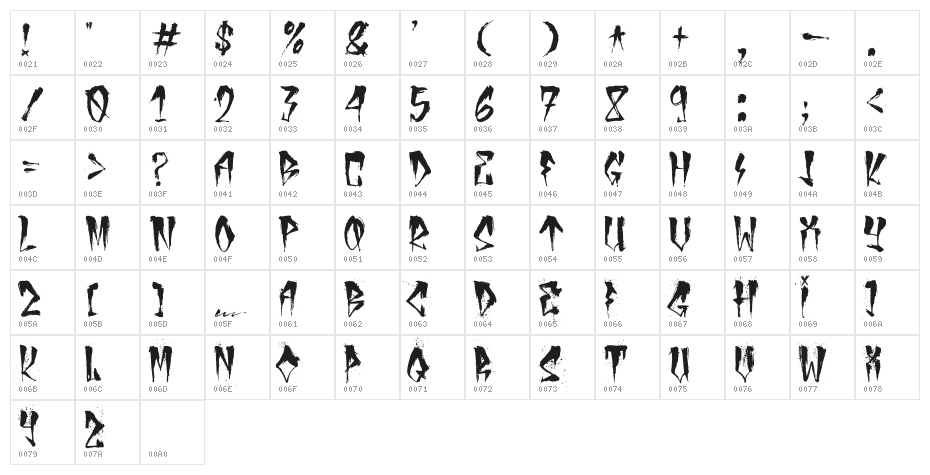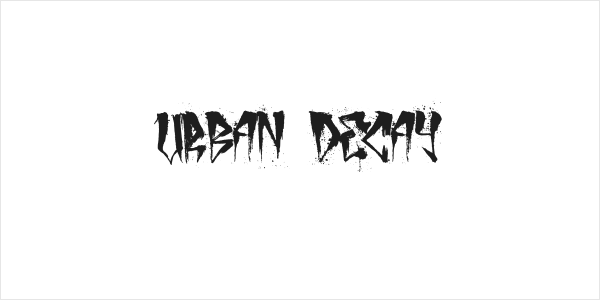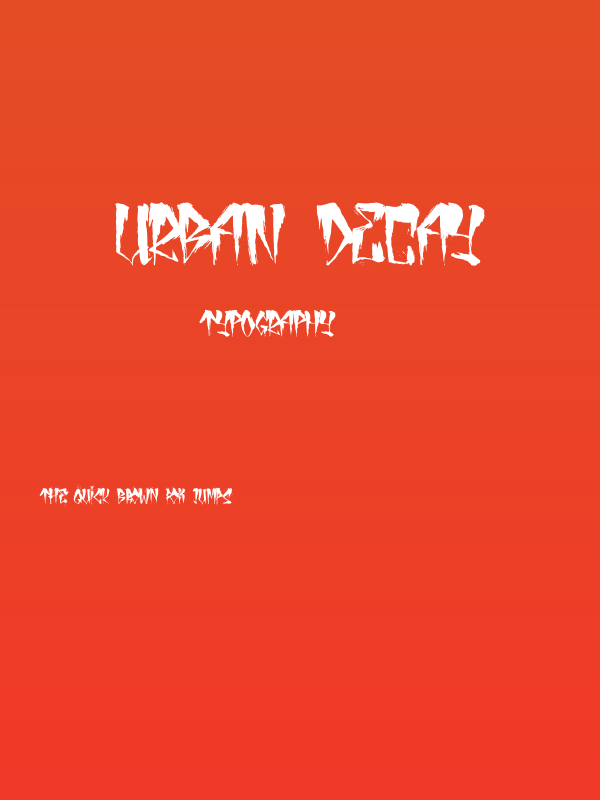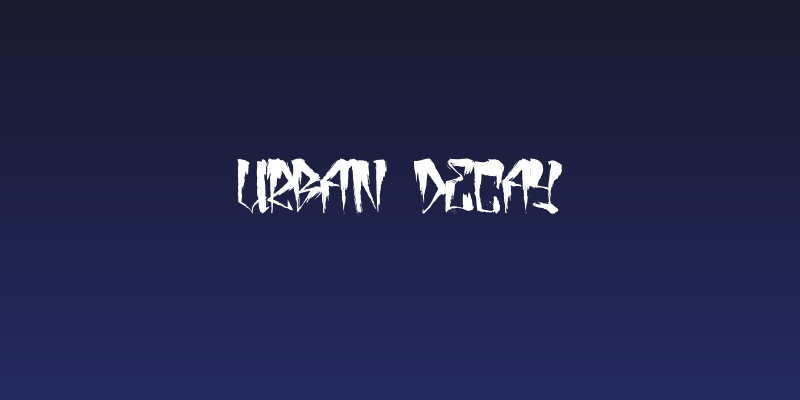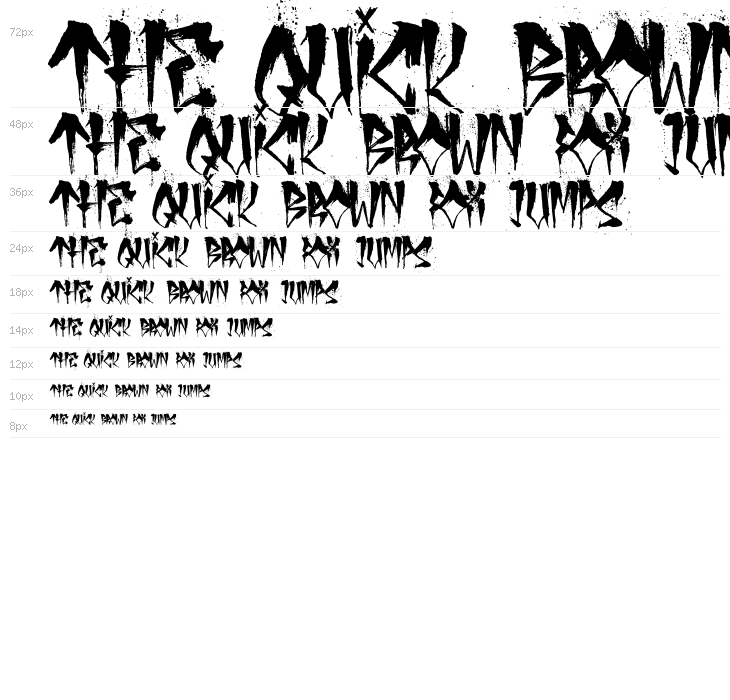
urban decay Font
urban decay Description
This font exudes a raw, gritty aesthetic reminiscent of urban street art and graffiti. The characters are bold and jagged, with an uneven, distressed texture that gives them a rebellious and edgy feel. The strokes are irregular, with splatters and rough edges that suggest a sense of movement and energy. This style is highly expressive, capturing the essence of an urban environment with its chaotic yet artistic flair. The font's unique appearance makes it stand out, ideal for projects that require a bold statement or a touch of urban culture.
| Overall Style | Urban, Edgy, Artistic |
| Use Case | Logos, Posters, Album Covers |
| Proposed Projects | Perfect for streetwear branding, music album covers, urban-themed posters, and graffiti art projects. |